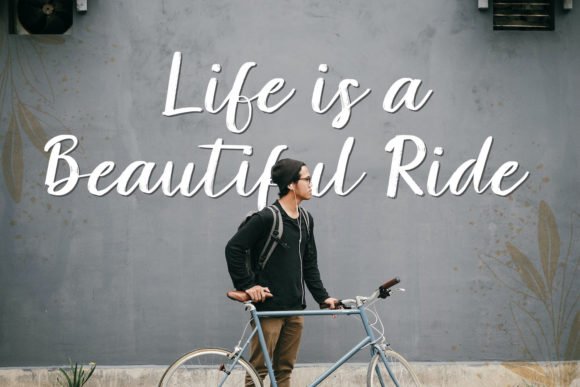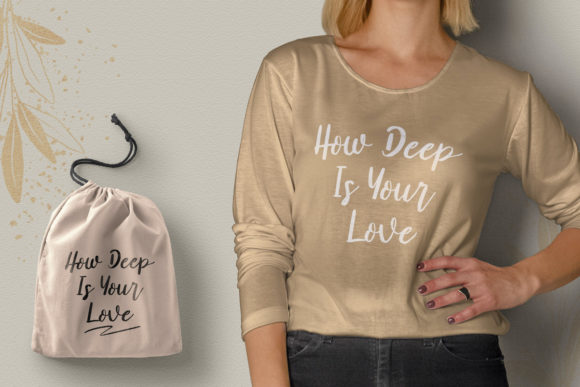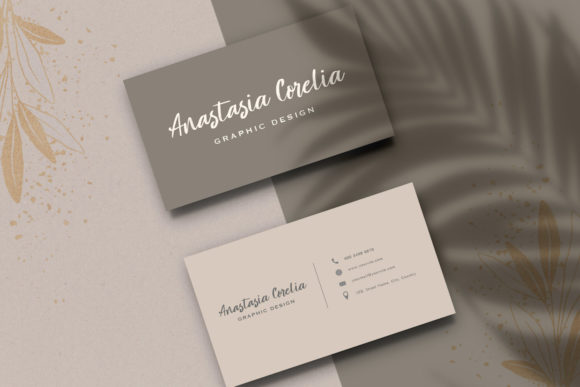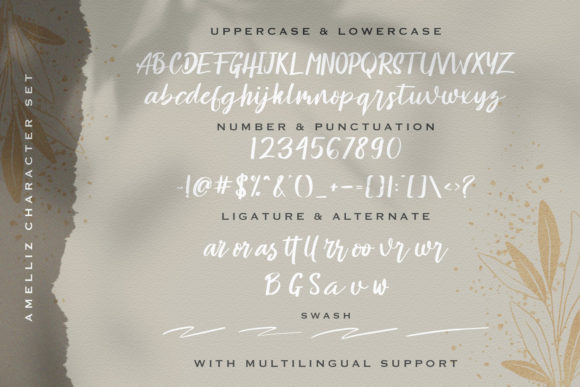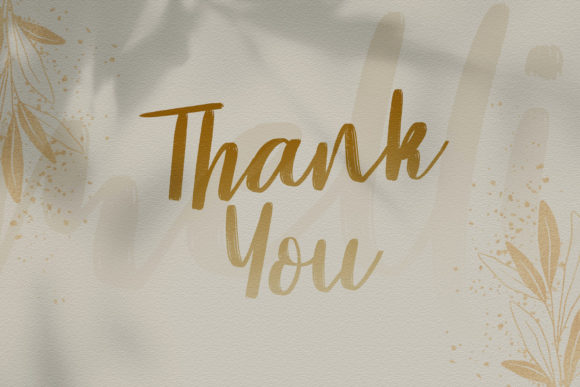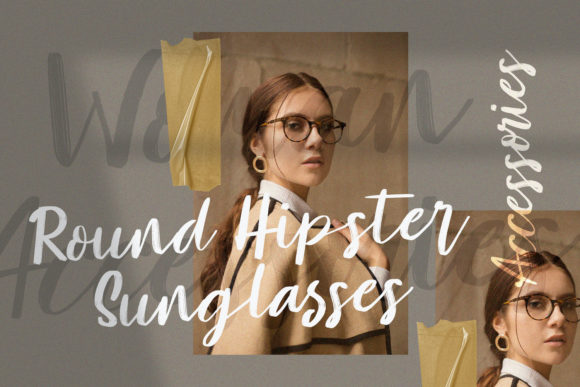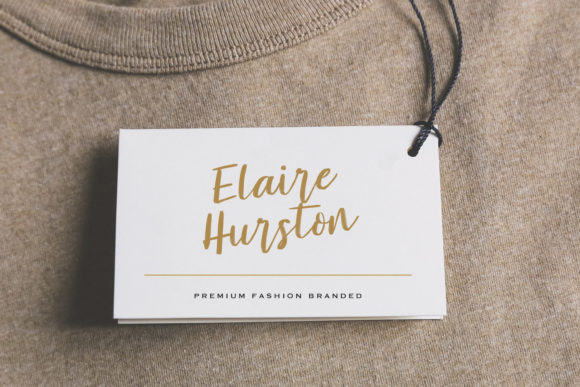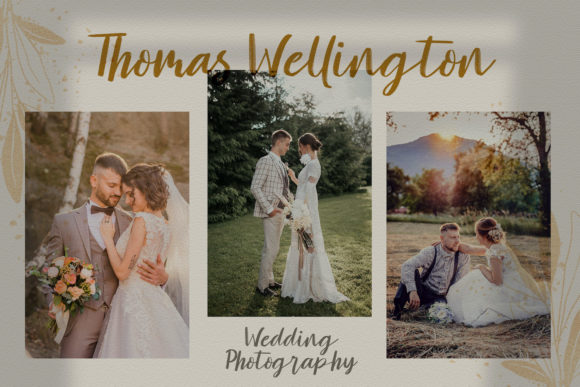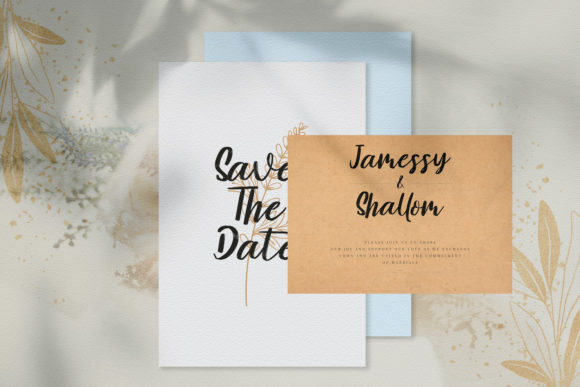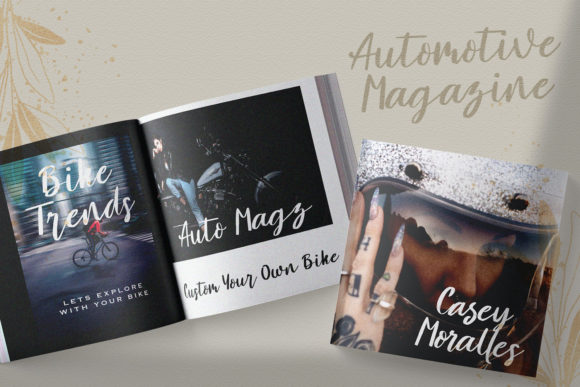
Amelliz Font
About Amelliz Font
Amelliz sounds like a truly enchanting and versatile handwritten font, perfect for adding an elegant and sophisticated touch to a wide range of creative projects. Its unique style, created with the aid of an elegant brush pen, makes it an ideal choice for various design endeavors. Let’s explore some of the exciting ways you can utilize Amelliz to bring your creative ideas to life:
1. Wedding Invitations: Design exquisite and romantic wedding invitations that capture the essence of the special day, leaving a lasting impression on the recipients.
2. Stationery Art: Create beautiful and luxurious stationery art, such as notecards, letterheads, and envelopes, that exude elegance and charm.
3. Social Media Posts: Use Amelliz to craft eye-catching and sophisticated social media graphics that effortlessly stand out on various platforms.
4. Quotes and Typography: Apply the font to create captivating typographic quotes and phrases, inspiring and resonating with your audience.
5. Blog and Website Headers: Customize your blog or website headers with Amelliz, adding a touch of elegance and refinement to your online presence.
6. Greeting Cards: Craft heartfelt and stunning greeting cards for different occasions, conveying warmth and sincerity through the elegant calligraphy.
7. Art Prints: Design art prints featuring Amelliz calligraphy, adding a touch of sophistication to your home decor or art collections.
8. Branding and Logos: Use the font for branding projects, giving your business or brand an elegant and memorable visual identity.
9. Product Packaging: Apply Amelliz to product packaging, elevating the presentation of your products with its refined and enchanting style.
10. Posters and Flyers: Create captivating posters and flyers for events, promotions, or announcements, effortlessly catching attention with Amelliz.
11. Personal Journals: Use the font for personal journaling, documenting your thoughts and reflections with an elegant and timeless flair.
12. Menus and Restaurant Branding: Apply Amelliz to design menus and restaurant branding materials, infusing your establishment with a touch of sophistication.
13. Home and Lifestyle Products: Utilize the font for labels and packaging of home and lifestyle products, creating a cohesive and elegant visual identity.
14. Magazine Layouts: Enhance the visual appeal of magazine layouts with Amelliz, adding a touch of luxury and sophistication to your editorial designs.
15. Beauty and Fashion Branding: Use the font for beauty and fashion branding, evoking a sense of elegance and allure.
16. Special Event Invitations: Create special event invitations, such as birthdays or anniversaries, with Amelliz’s refined and enchanting touch.
17. Inspirational Posters: Design inspirational posters with Amelliz calligraphy, spreading positive messages and adding a touch of sophistication.
18. Craft and DIY Projects: Incorporate Amelliz into various craft and DIY projects, elevating the elegance and charm of your creations.
19. Book Covers: Apply the font to book covers, enhancing your literary works with an elegant and captivating visual identity.
20. Personalized Gifts: Use Amelliz to create personalized gifts, such as custom prints or mugs, that carry a sense of sophistication and thoughtfulness.
In conclusion, Amelliz is an exquisite handwritten font that offers unparalleled elegance and versatility. From wedding invitations to social media graphics, from stationery to art prints, Amelliz’s elegant calligraphy will add a touch of sophistication to your designs. Fall in love with Amelliz’s refined and enchanting style, and use it to bring a sense of luxury and elegance to each of your creative endeavors. Embrace the versatility of Amelliz in your design projects, and notice how it elevates your creations, captivating your audience and making them truly stand out with its timeless appeal.